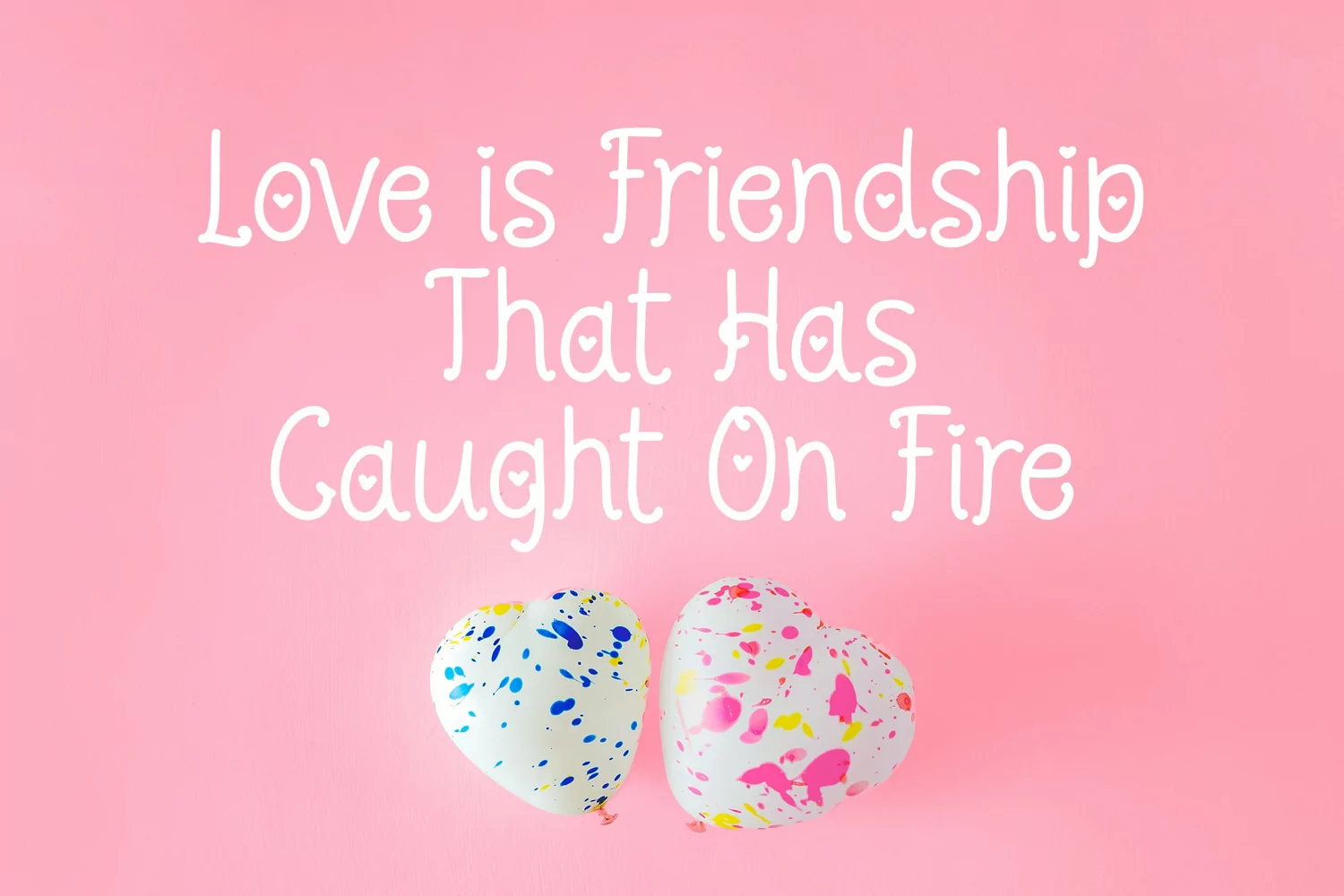
Love Melody - Lovely Monoline Font that contain lowercase, uppercase, symbol, and also support multi language. There’s a lot ligatures in this font. This Font also comes with ligatures, alternates and many more. this font suitable for fashion, branding, catalog and other design what you want.